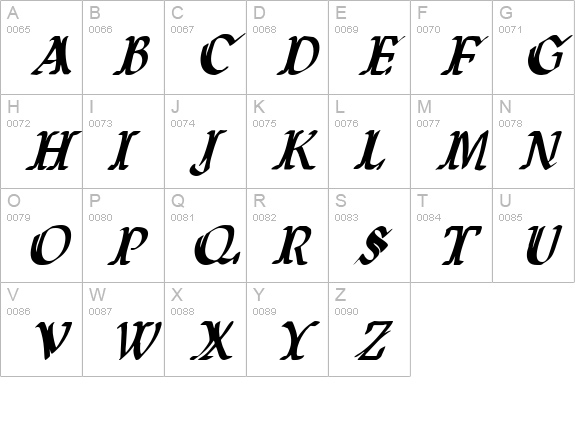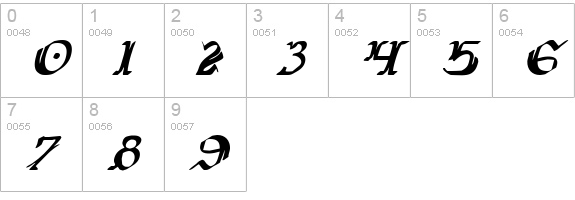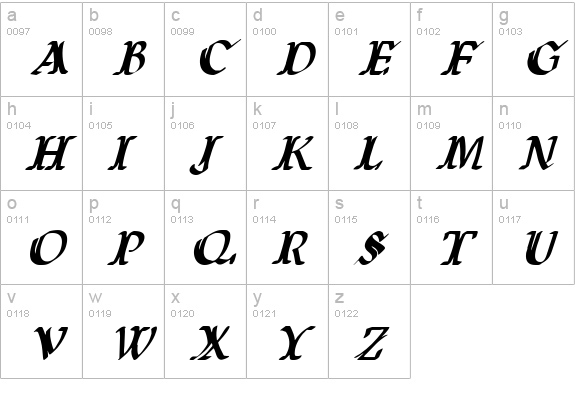
Wars of Asgard Condensed Italic is a distinctive, condensed-width, italic variant in the Wars typeface family \xE2\x80\x94 well suited to design and typography projects.
Wars of Asgard Condensed Italic is a sleek and modern font that exudes power and sophistication. Its condensed design adds a touch of elegance to any text, making it perfect for headlines, titles, and branding materials. The italicized style lends a sense of dynamism and movement, capturing the eye and drawing the reader in. Whether you're creating a bold statement or adding a touch of flair to your designs, Wars of Asgard Condensed Italic is sure to make an impact. And the best part? This stunning font is available for free download at FontsMarket.com. Don't miss out on the opportunity to add this versatile typeface to your collection today!